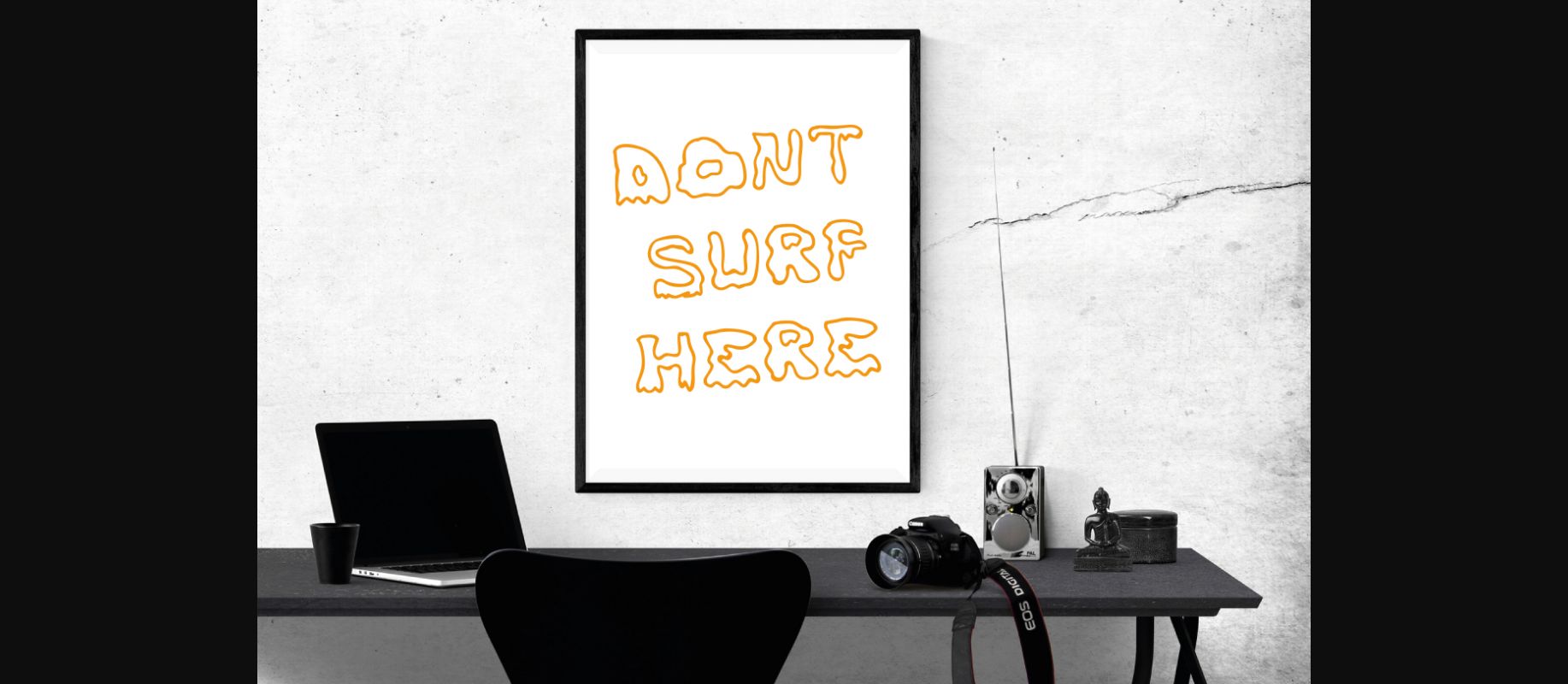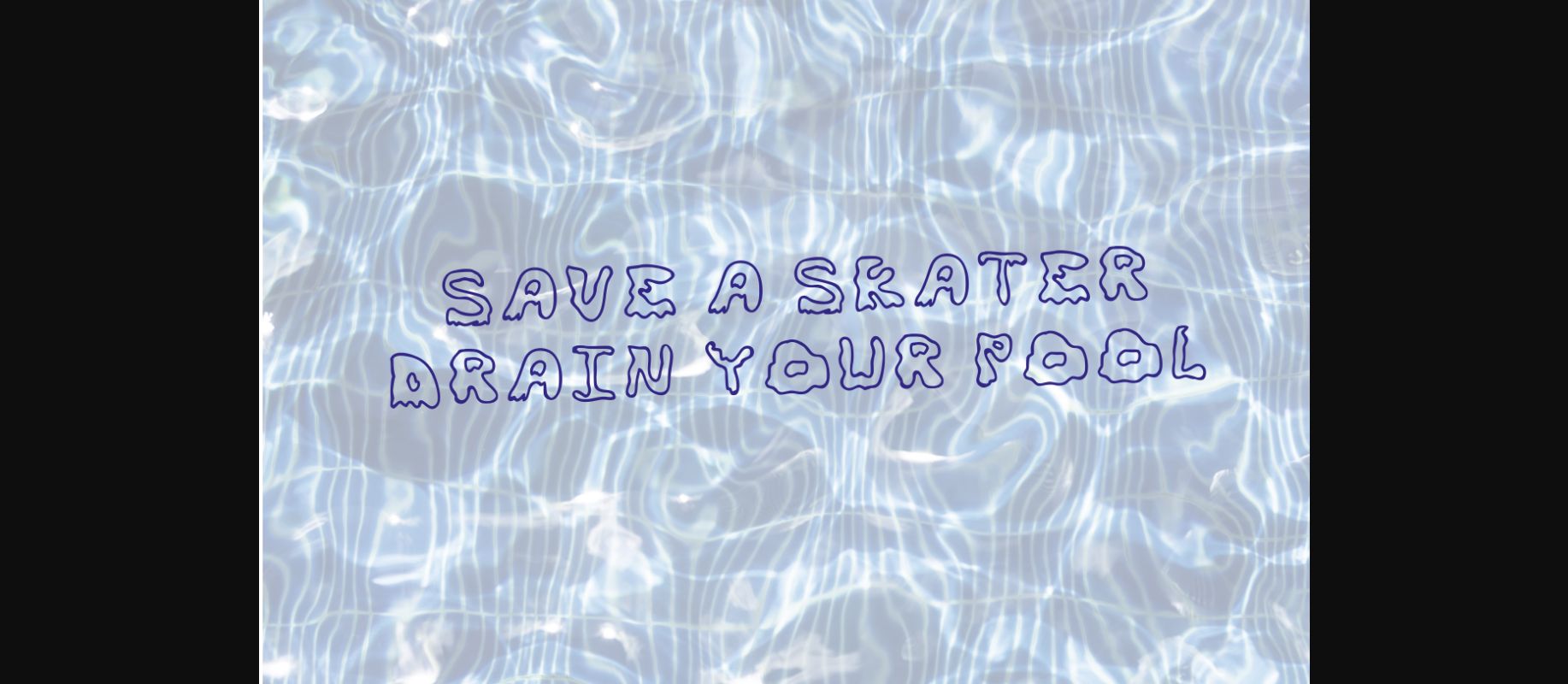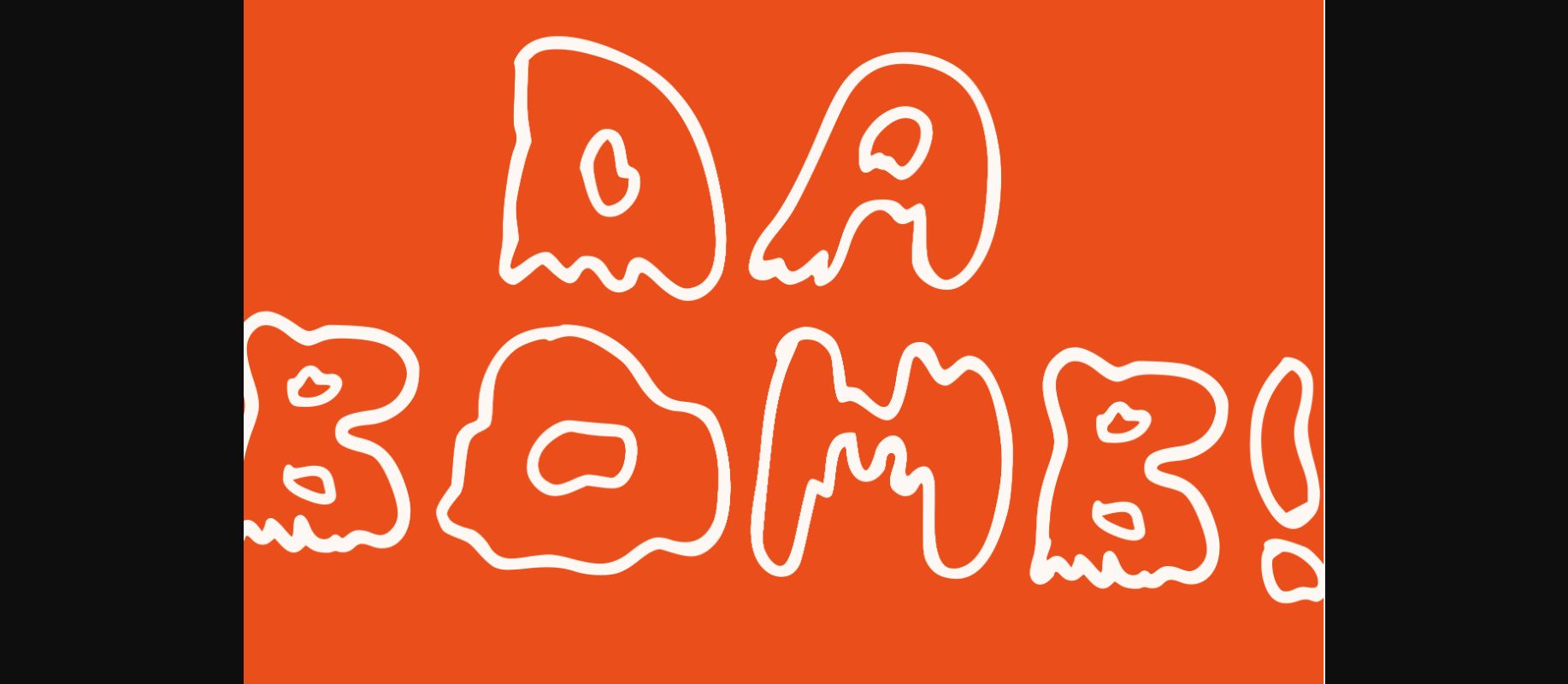
Skater Skank Font
About Skater Skank Font
Skater Skank is inspired by the graphics, stickers and artworks on urban sports. Froms Santa Cruz to Volcom, it’s hard not to take note of the illustration and branding styles of some of the worlds best skate, surf and bmx brands. With that in mind ‘Skater Skank’ comes to park to see if it has what it takes to be impressive and make an impact. ‘Skater Skank’ is a crazy, sloppy, rotten font that will make any design stand out!